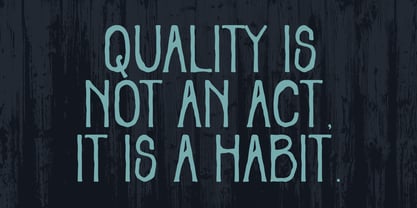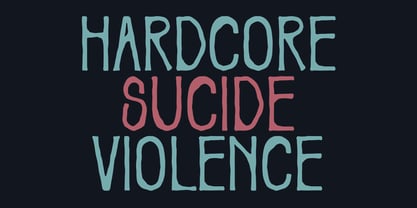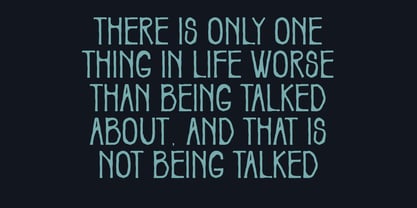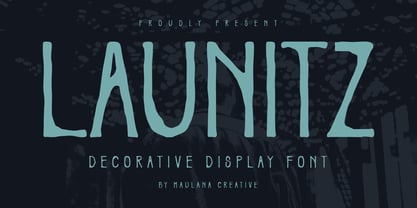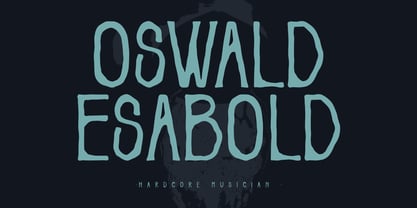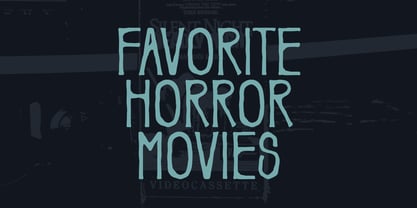
MC Launitz
by Maulana Creative
The MC Launitz Font Family was designed by Gilang Maulana and published by Maulana Creative. MC Launitz contains 1 styles. More about this family
Launitz is a decorative display vintage font. With bold tall and grunge stroke, fun character with a bit of ligatures. To give you an extra creative work. Launitz font support multilingual more than 100+ language. This font is good for logo design, Social media, Movie Titles, Books Titles, a short text even a long text letter and good for your secondary text font with sans or serif. Make a stunning work with Launitz font.